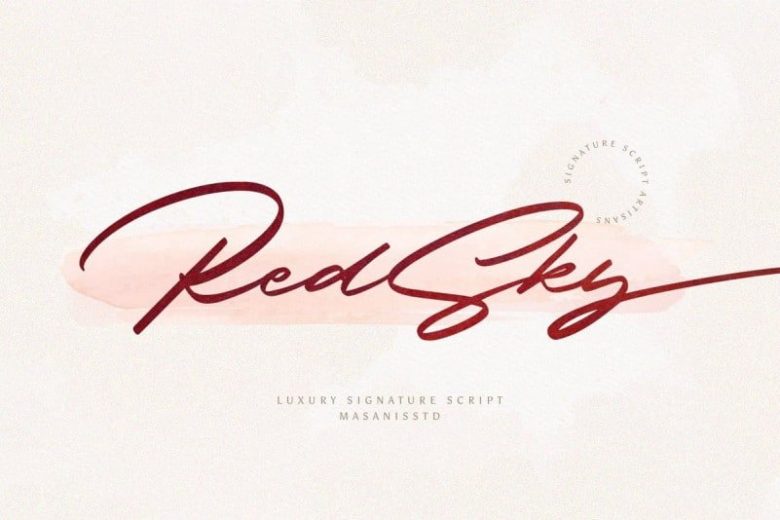
RedSky Script Font Free
RedSky Script Font is completely hand-drawn and contain ligatures to perfectly re-create natural handwriting. Made from font designer named Masanis. Fall in love with its incredibly distinct and timeless style and use it to create spectacular designs!
With Modern and Classy style, make this font perfect for project like watermark for photo, wedding, event, invitation, escort card, table number, header menus, editorial, display, logos, slider blog, social media, custom address, stamps, packaging, greeting card, etc.